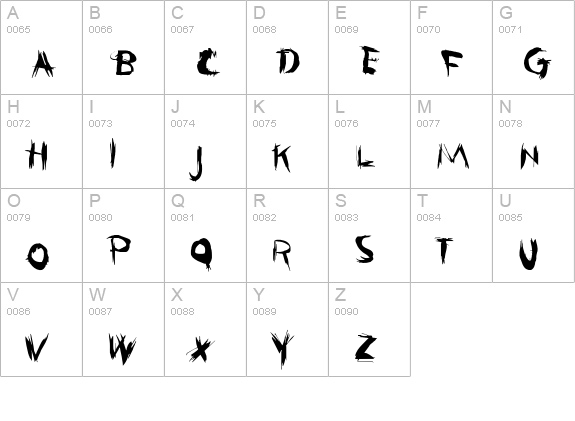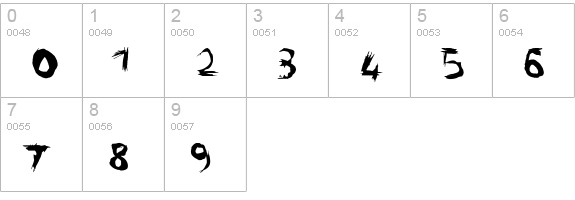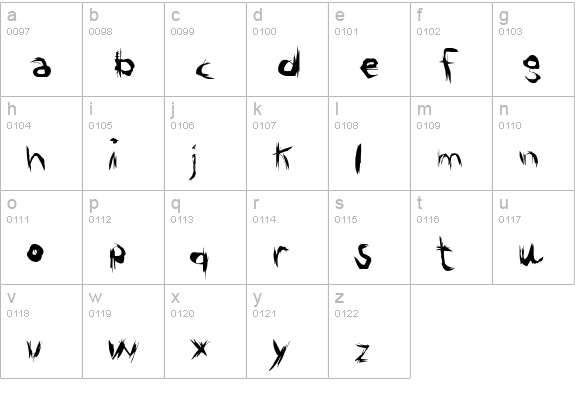
Graffio-Offensivo Font Details
Introducing Graffio-Offensivo font, a bold and dynamic typeface that exudes energy and attitude. With its sharp angles and edgy design, Graffio-Offensivo is perfect for making a powerful statement in your designs. This font is ideal for projects that require a strong and assertive look, such as posters, flyers, album covers, and more. Not only does Graffio-Offensivo make a bold impression, but it also offers versatility in its design, allowing you to experiment with different styles and layouts. Whether you're looking to add a touch of urban flair or a rebellious edge to your designs, Graffio-Offensivo has you covered. Best of all, Graffio-Offensivo is available for free download at FontsMarket.com. So go ahead and unleash your creativity with this striking font that is sure to make a lasting impact. Download Graffio-Offensivo today and take your designs to the next level!